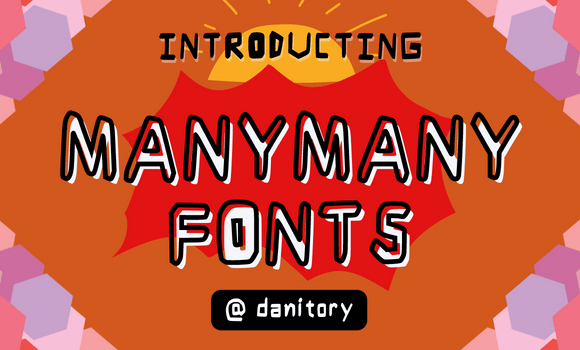
manymany
Manymany Font - Featured Image
Manymany Font – Free Download Introduction to Manymany Font Manymany is a display font designed with straight, easy-to-understand, and cool features. 📸 Preview Gallery 5 images 📌 Product Name Manymany Font 👤 Author danita.kukkai 📂 Category Explore ⬇️ Download Manymany